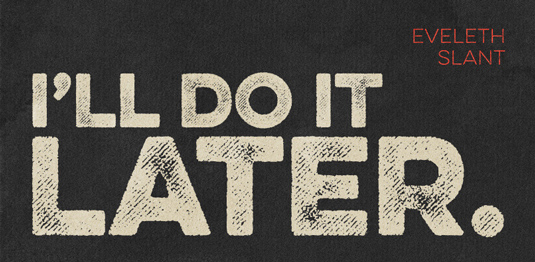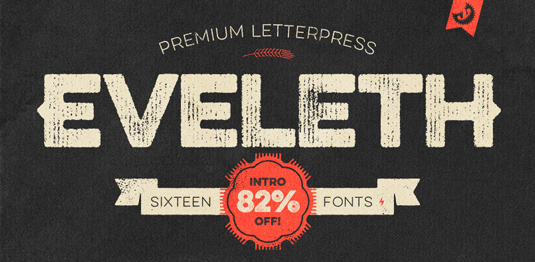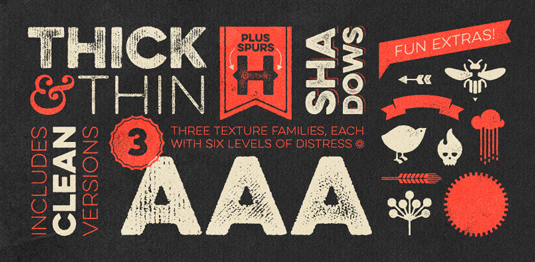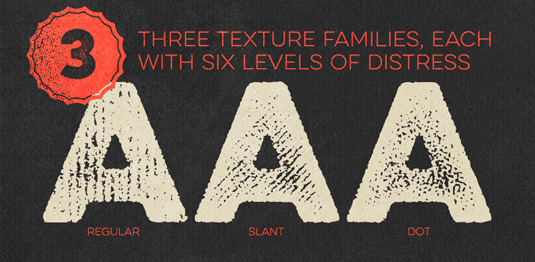
Font of the day: Eveleth
Eleveth from Yellow Design Studio
Today's font of choice is Eleveth from Yellow Design Studio. Available from HypeForType, the design is described as a 'premium high-resolution letterpress family with exceptional realism and vintage charm. It features three different sub-families each with its own unique printed texture'.